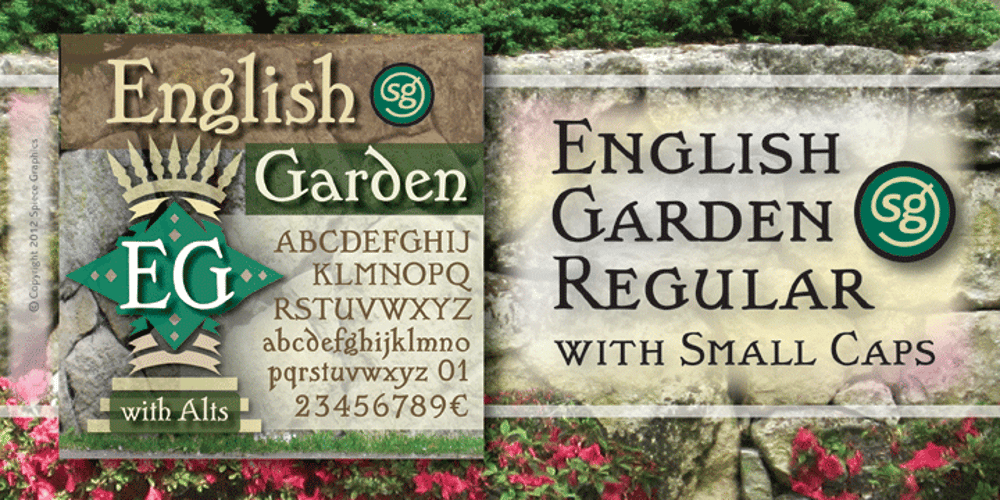
English Garden SG
English Garden SG font
English Garden SG Font Family was designed by Jim Spiece and published by Spiece Graphics. English Garden SG contains 1 styles and family package options. Here is a wonderfully charming typeface similar in style to the folklore lettering created by Walter Crane, the prolific children’s book illustrator. This English artist created many beautiful, flower-decorated works during the Arts and Crafts movement that flourished between 1860 and 1910. English Garden SG Regular contains many of Crane’s original whimsical and quirky characters. Note the inclusion of a spurred capital G, a squat lowercase g, a bending floral lowercase d, and the quaint old style figures. All of which are a delight to use when casting a medieval storybook tone to your project. You might also take advantage of the enchanting small capitals when setting logos, headlines, and decks. English Garden SG Regular is now available in the OpenType format. Some new characters have been added to this OpenType version including stylistic alternates, discretionary ligatures, historical forms, and petite figures. Advanced features currently work in Adobe Creative Suite InDesign, Creative Suite Illustrator, and Quark XPress 8. Check for OpenType advanced feature support in other applications as it gradually becomes available with upgrades.